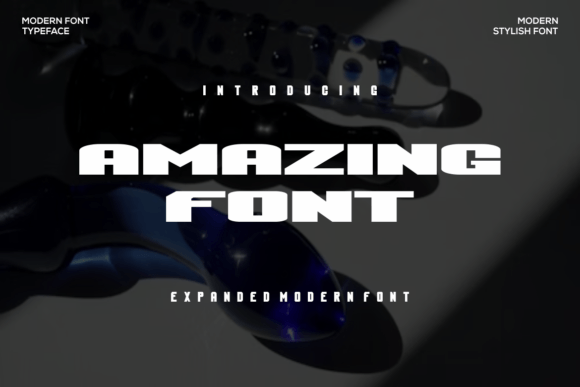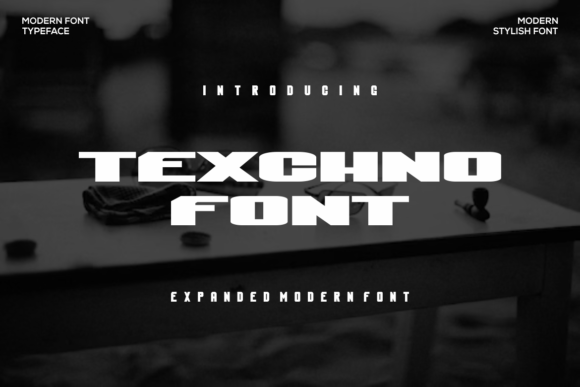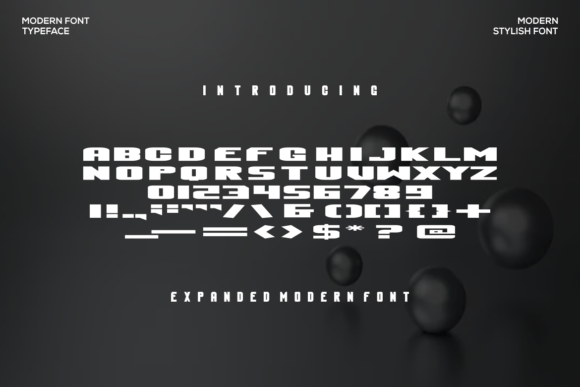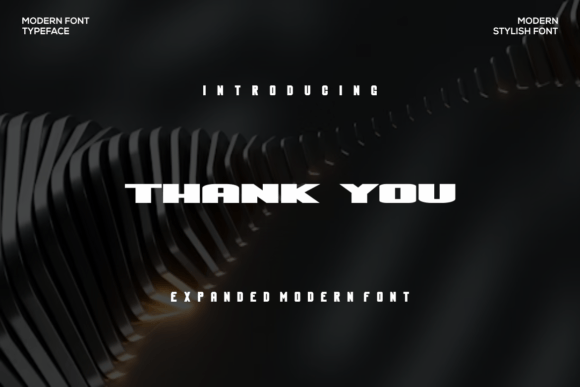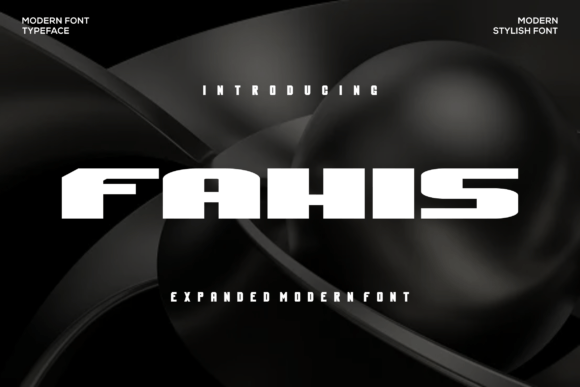
Introducing Fahis Font: The Modern Display Font for Bold Designs
In the world of design, fonts play a crucial role in conveying messages, evoking emotions, and creating brand identities. For designers and crafters looking for a bold and authentic display font, we are excited to present Fahis Font, a modern font designed to elevate your branding projects to the next level. In this article, we’ll explore the features, benefits, and uses of Fahis Font, and why it’s the perfect choice for your design needs.
What is Fahis Font?
Fahis Font is a modern display font that exudes confidence and style. Its bold and authentic design makes it perfect for creating striking logos, t-shirt prints, and other creative products. The font’s unique character set and sleek lines ensure that your designs stand out in a variety of contexts, from digital media to print materials.
Key Features of Fahis Font
- Bold and Authentic Design: Fahis Font boasts a bold and authentic design that commands attention and makes a lasting impression.
- Versatile: This font is perfect for a wide range of design projects, including logos, t-shirt printing, brochures, posters, and more.
- Easy to Read: Despite its bold design, Fahis Font is easy to read, making it suitable for both digital and print materials.
- Unique Character Set: Fahis Font features a unique character set that adds a touch of personality to your designs.
Benefits of Using Fahis Font
So, why choose Fahis Font for your design projects? Here are some benefits that make it an excellent choice:
- Enhance Your Brand Identity: Fahis Font helps create a strong brand identity that sets you apart from the competition.
- Save Time: With Fahis Font, you can create professional-looking designs in no time, thanks to its easy-to-use and versatile design.
- Increase Engagement: The bold and authentic design of Fahis Font is sure to grab attention and increase engagement with your audience.
- Cross-Platform Compatibility: Fahis Font is compatible with various design software and platforms, making it easy to use across different mediums.
Uses of Fahis Font
Fahis Font is an incredibly versatile font that can be used in a variety of design projects, including:
- Logo Design: Create a bold and memorable logo that represents your brand.
- T-Shirt Printing: Design eye-catching t-shirts that make a statement.
- Brochures and Posters: Create striking brochures and posters that grab attention.
- Social Media Graphics: Design engaging social media graphics that stand out in crowded feeds.
- Packaging Design: Create bold and eye-catching packaging designs that showcase your brand.
Tips for Using Fahis Font
To get the most out of Fahis Font, here are some tips to keep in mind:
- Use it Boldly: Fahis Font is designed to make a statement, so don’t be afraid to use it in bold and large sizes.
- Experiment with Colors: Try out different color combinations to create unique and eye-catching designs.
- Pair it with Other Fonts: Fahis Font can be paired with other fonts to create interesting and dynamic designs.
In conclusion, Fahis Font is a modern display font that offers a bold and authentic design, perfect for creating striking branding projects. Its versatility, ease of use, and unique character set make it an excellent choice for designers and crafters looking to elevate their designs. Whether you’re creating logos, t-shirt prints, or social media graphics, Fahis Font is sure to make a lasting impression.